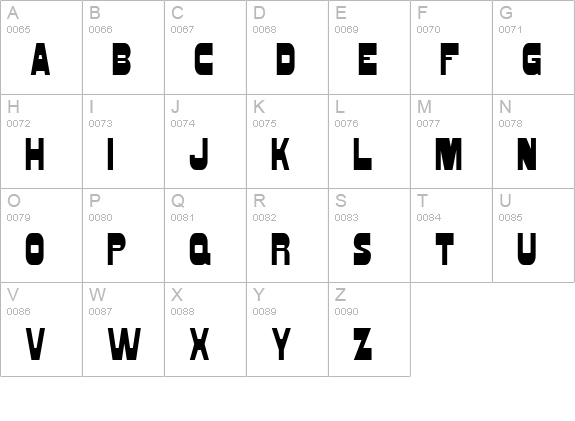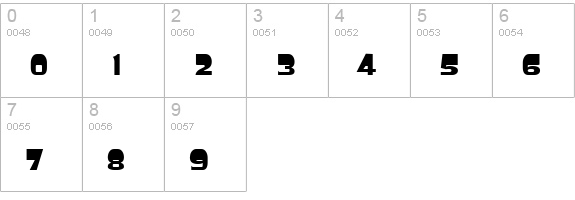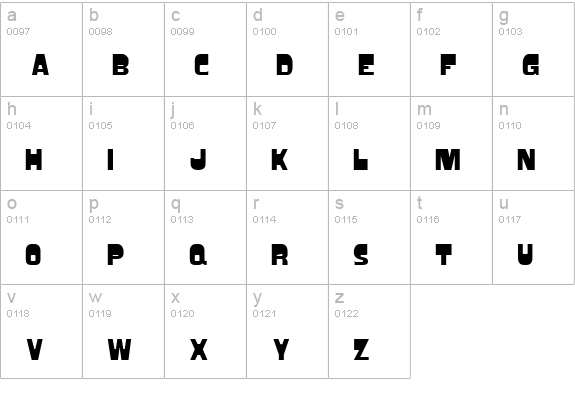
Blacktop Small Caps Font Details
Blacktop Small Caps is a modern and stylish font that exudes sophistication and charm. With its sleek lines and unique design, this typeface is perfect for creating eye-catching designs that demand attention. The small caps style adds a touch of elegance and professionalism to any project, making it ideal for branding, logos, headlines, and more. What's even better is that Blacktop Small Caps is available for free download at FontsMarket.com. Whether you're a designer looking to add a fresh new font to your collection or a business owner in need of a standout typeface for your marketing materials, Blacktop Small Caps has got you covered. Don't miss out on this fantastic font that combines style and versatility in one package. Download it now and take your designs to the next level!